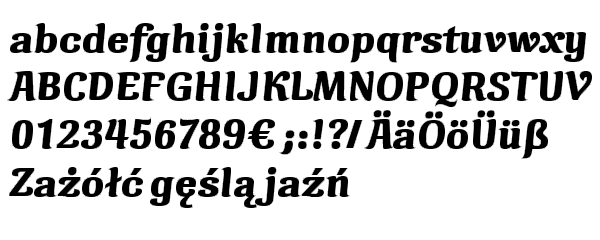
Marita
Font zaprojektowany przez Volker Schnebel, w roku 2010
Marita combines sternness with swing and, from this, develops its own, unique elegance. This makes Marita quite versatile, also and especially for headline settings. Apart from numerous ligatures, the font also includes old style figures. Marita is based on brush writing with drop-shaped serifs. The idea was to try to apply a given design criteria (also see Volker Schnebel’s Manuel and Martin fonts) to every single character. In other words, start with a character and develop all of the others from it. This is quite easy for some characters but extremely difficult for others. This process generates creativity and the characters move away from the initial constructed sketch. Together in a typeface, the individual characters are now all of a piece and character.